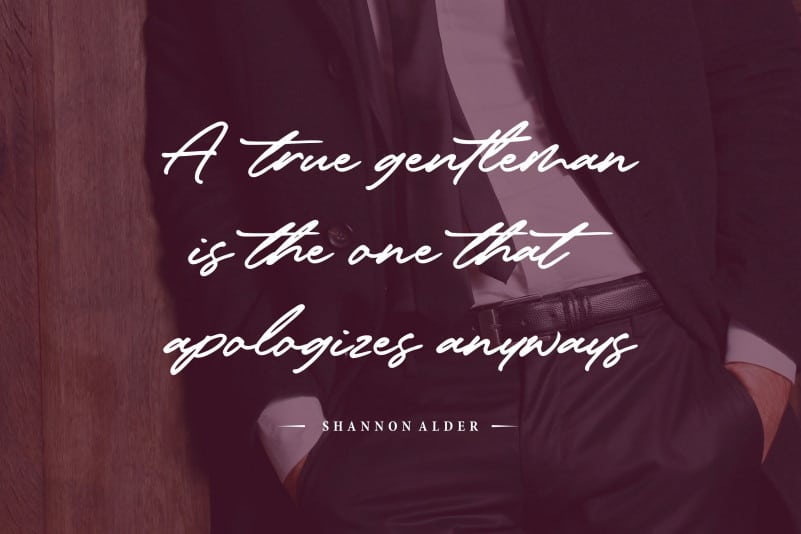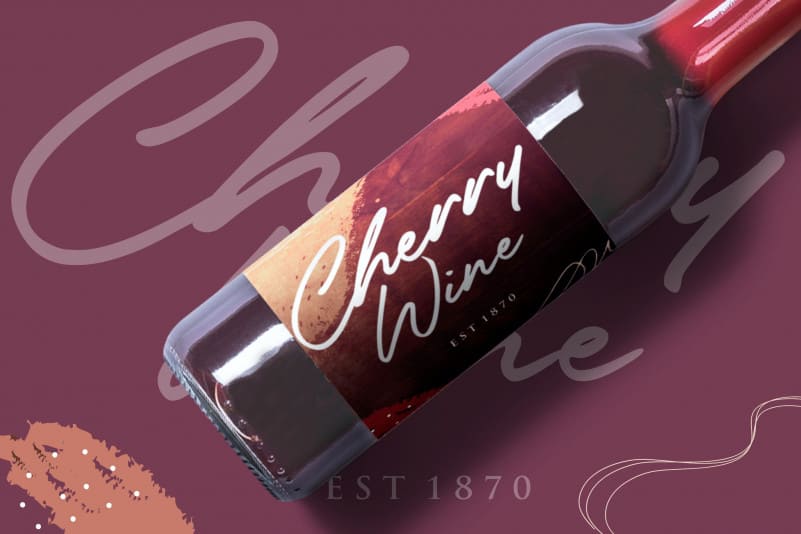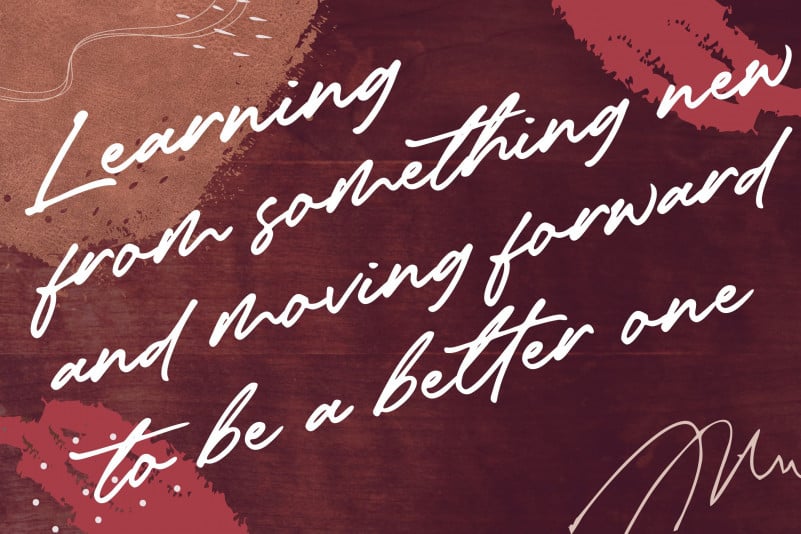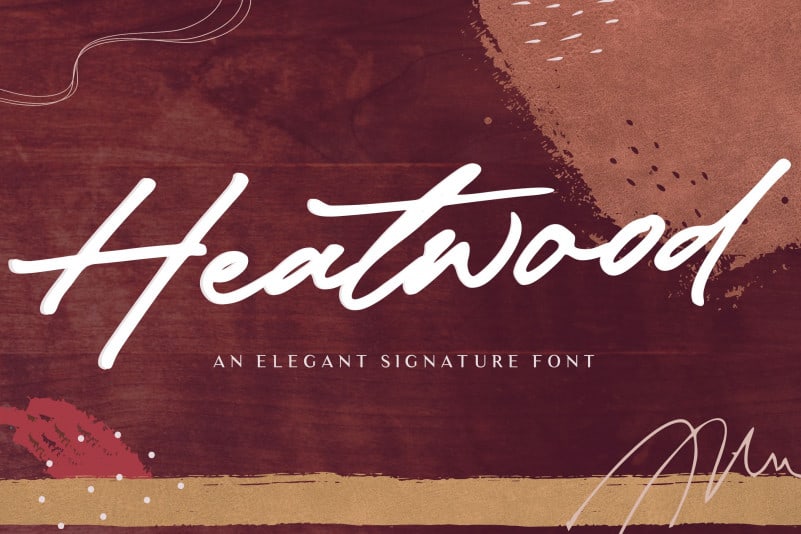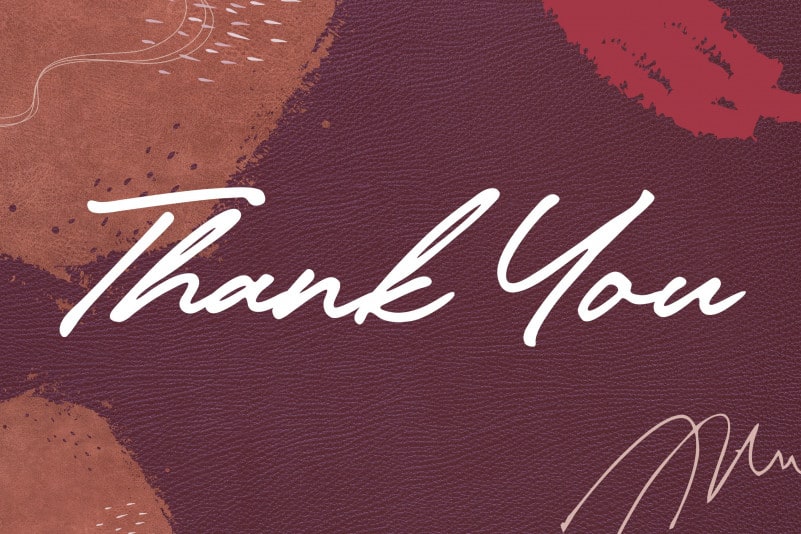
Proudly Present, Heatwood An Elegant Signature Font.
Heatwood it’s a trendy signature script font. and also very suitable for product packaging, branding projects, megazine, social media, wedding or just used to express words over the background.